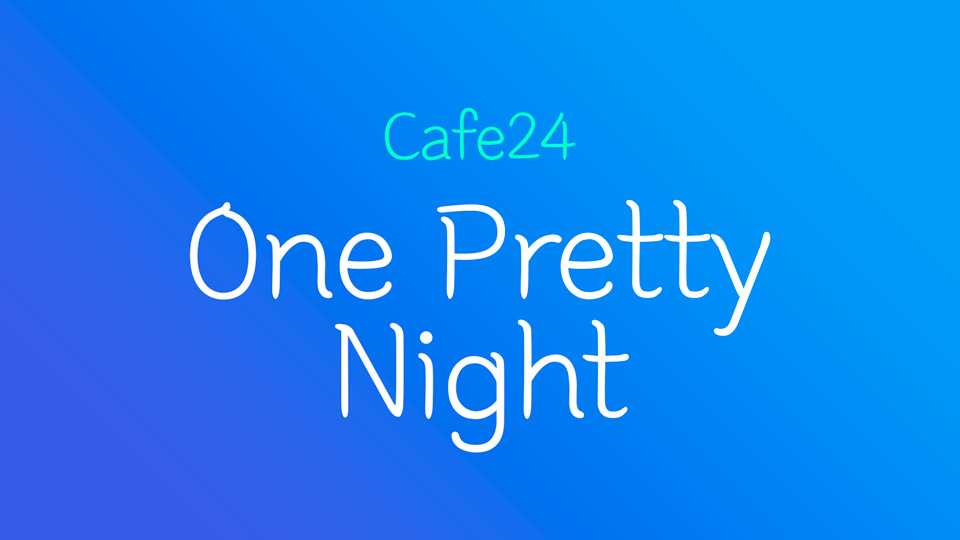
Download One Pretty Night font, a multi-script typeface that supports both Latin and Hangul (Korean), characterized by a tender handwritten feel reminiscent of pen on paper.
Designer: Cafe24